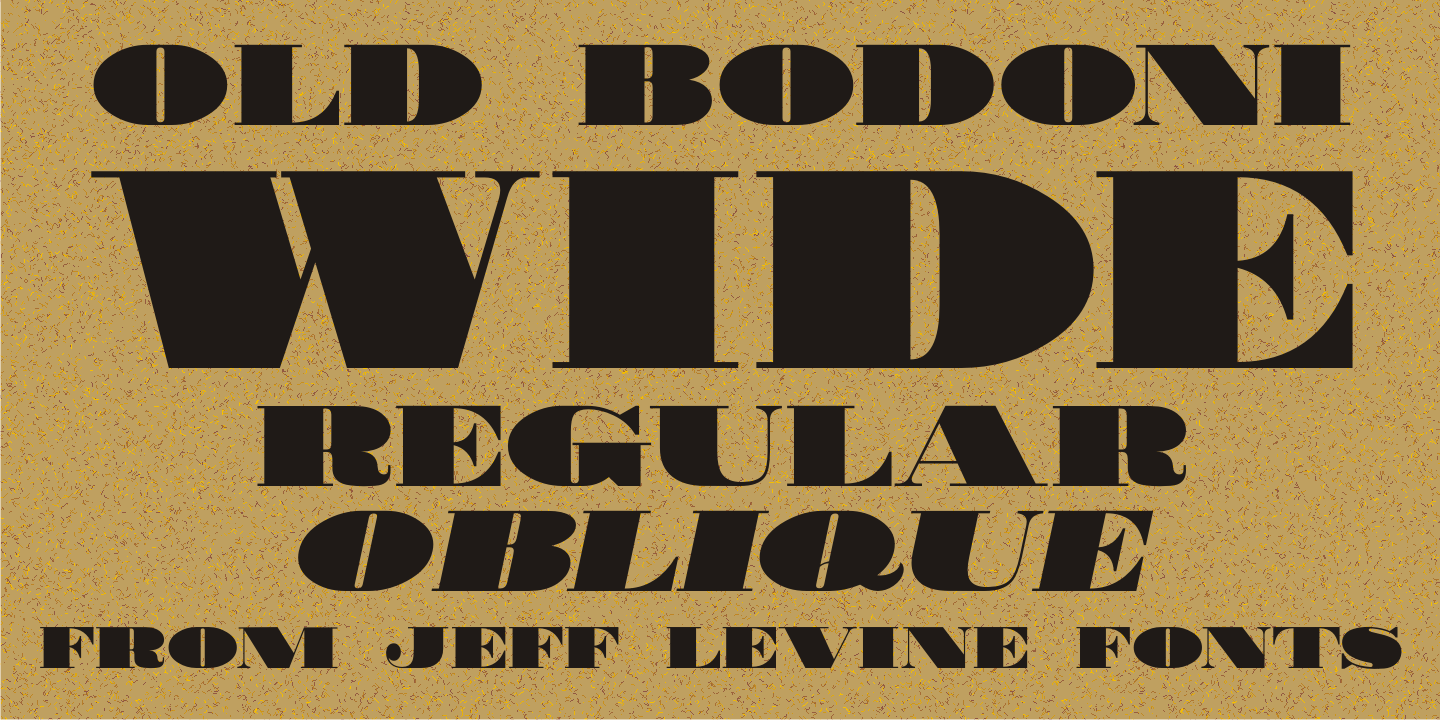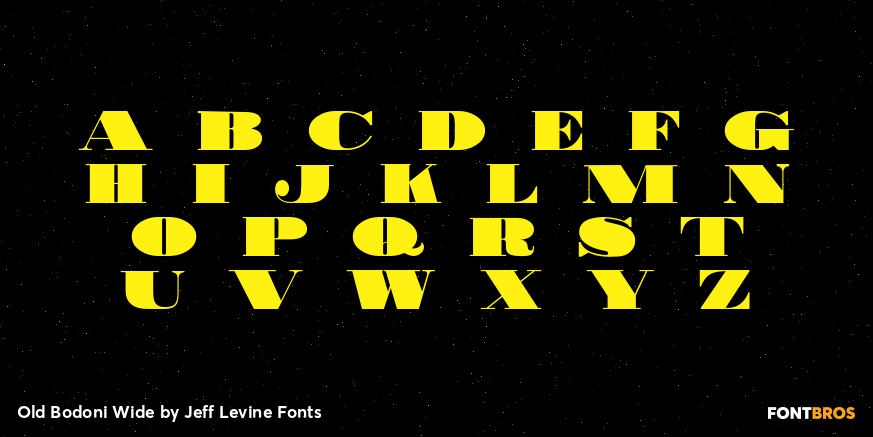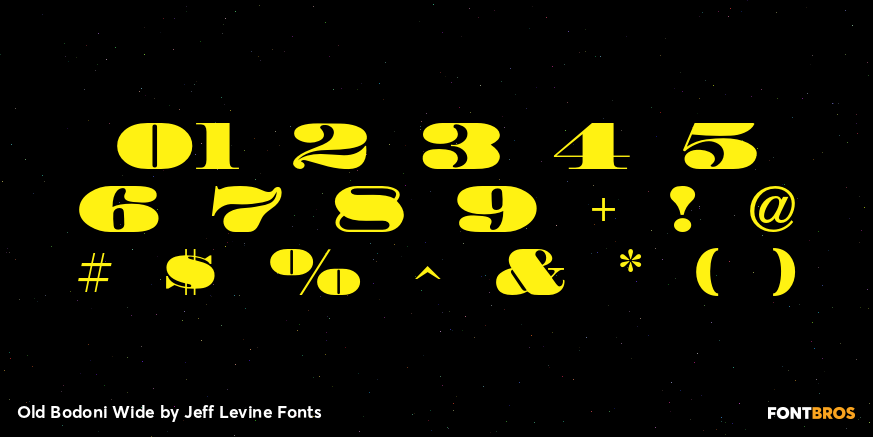
Old Bodoni Wide
Old Bodoni Wide JNL is based on examples of this classic Bodoni design and contains the quirks and imperfections one might find within a wood type font.